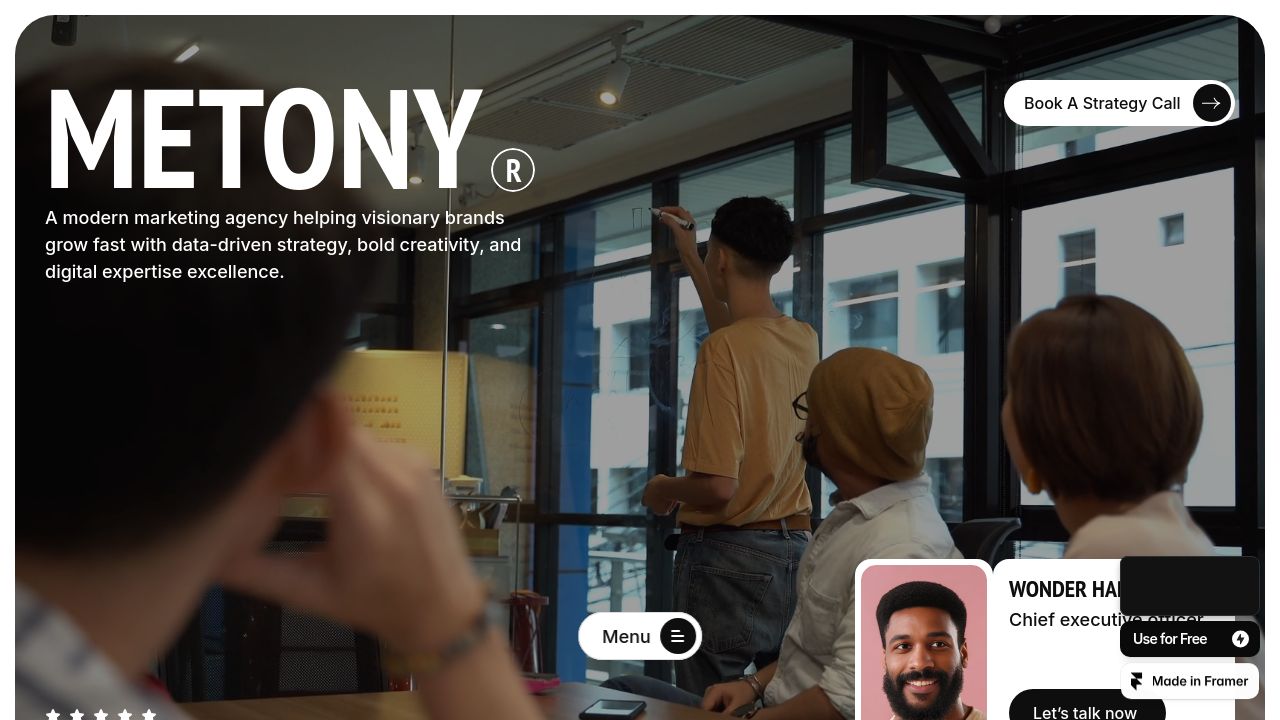
A modern creative agency template designed to build stunning websites with smooth animations, responsive layouts, and high-converting user experiences.
What fonts does Metony use?
Metony.framer.website uses Inter, PT Sans Narrow, Geist, Geist Mono and Urbanist as its main typefaces. 8 fonts detected, last checked Apr 14, 2026.
At metony.framer.website, the choice of typefaces reflects a commitment to a unique creative agency identity. The primary font, Inter, is used prominently in weight 400, providing a clean and readable base. Geist Mono and Geist, with weights of 600 and 500 respectively, add a distinctive flair to the design, suggesting innovation and creativity. The presence of PT Sans Narrow adds a touch of versatility, ensuring a cohesive yet dynamic visual experience for users seeking inspiration.
What fonts does Metony.framer.website use?
Metony.framer.website uses Inter, PT Sans Narrow, Geist, Geist Mono and Urbanist as its main typefaces. 8 fonts detected, last checked Apr 14, 2026.
What fonts does metony.framer.website use?
The primary fonts used on metony.framer.website include Inter (weight 400), Geist Mono (weight 600), and Geist (weight 500), among others.
How does Inter compare to other sans-serif fonts?
Inter is known for its excellent legibility at various sizes, making it a popular choice for digital interfaces compared to other sans-serif fonts.
What styles and weights are available for Geist?
Geist is available in several weights, including 500 for regular text and 600 for bold applications, allowing for effective emphasis in design.
Are there any fallback fonts used on metony.framer.website?
No fallback fonts are specified for metony.framer.website, indicating a strong reliance on the custom fonts chosen for the brand's identity.